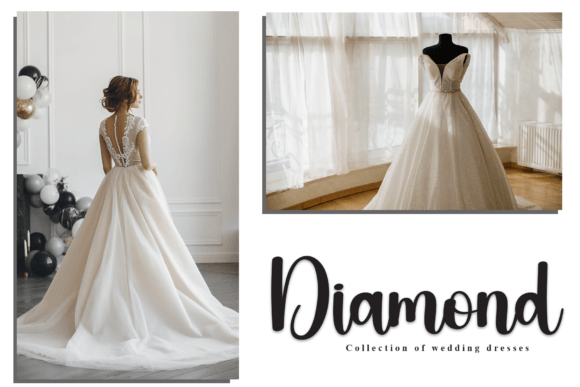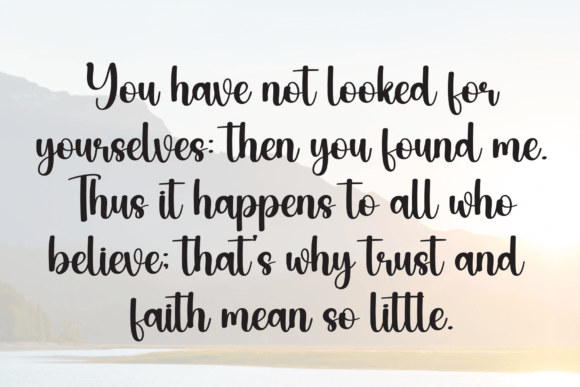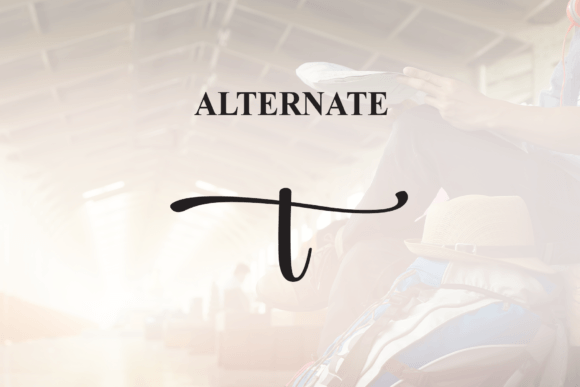
Introduction to Longtime Font
Remember that moment when you’re working on a creative project and you can’t quite find the right font to bring your vision to life? The perfect font can make all the difference between a design that’s just okay and one that truly stands out. For designers, finding that elusive font can be a challenge, but what if I told you that there’s a font that’s sure to become your go-to design resource?
| 📌 Product Name | Longtime Font |
| 👤 Author | Creativewhitee |
Meet Longtime Font, a sweet and friendly handwritten font that’s as versatile as it is charming. Its natural and unique style makes it incredibly fitting to a large pool of designs, from digital projects to print materials. Whether you’re working on a design project that requires a high-quality, transparent background or just need a font that adds a touch of personality to your work, Longtime Font is a valuable asset for any designer.
Key Features of Longtime Font
- High-quality design resource ideal for creative projects, featuring a unique and modern aesthetic.
- Unique characteristics include a bold and elegant design, making it perfect for creating a professional and sophisticated look in any creative project.
Honest Review: Longtime Font
As a designer, I’m always on the lookout for high-quality fonts to elevate my creative projects. I recently came across Longtime Font, and I’m excited to share my honest review.
What works well: ✨ Longtime Font offers a beautiful, elegant design that’s perfect for a wide range of creative projects. The font is available for free download, making it an excellent resource for designers on a budget. I also appreciate the transparent background, which allows for seamless integration into my designs.
- Wide range of weights and styles to choose from
What doesn’t work so well: ⚠️ While Longtime Font is a great resource, I did encounter some issues with the font’s consistency across different platforms. In some cases, the font appeared slightly distorted or blurry.
Overall impression: Longtime Font is a solid addition to any designer’s toolkit. While it’s not perfect, its high-quality design and free availability make it a valuable resource for any creative project. With a few tweaks to address the consistency issues, I’d highly recommend Longtime Font to my fellow designers.
Tips for Getting the Most Out of Longtime Font
Experiment with different font sizes and styles to find the perfect fit for your design project. Combine Longtime Font with other design elements to create a cohesive and visually appealing design.
Use Longtime Font for various creative projects, including logo design, branding materials, and digital marketing campaigns. Its versatility makes it an ideal choice for designers and non-designers alike.